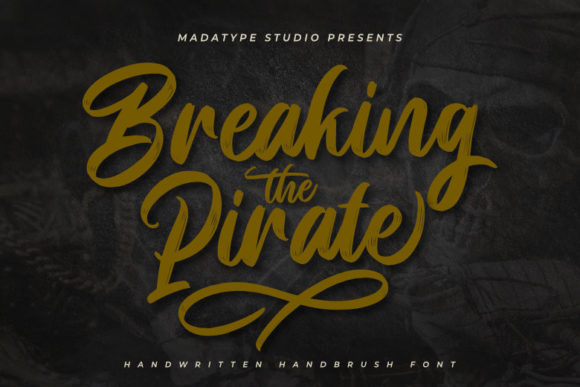
Unleash the spellbinding charm of your designs with Breaking Pirate, a script font that weaves a tale of elegance and allure. Immerse yourself in the world of visual enchantment as this font casts its magic upon your creations. Its meticulously crafted alternates and ligatures dance in harmony, inviting you to explore the boundaries of your imagination.
With Breaking Pirate, you can effortlessly evoke a sense of sophistication and timeless beauty in your branding logo. This font is a masterpiece, meticulously designed to elevate your designs to new heights of excellence. Its every stroke radiates artistry, making it the perfect choice for businesses and individuals seeking a touch of distinction.
Branding is not merely about creating a logo; it's about crafting an identity, a visual language that speaks to your audience with eloquence and power. Breaking Pirate empowers you to do just that. Its alluring curves and graceful lines capture attention, leaving an indelible mark on the minds of your customers.
But Breaking Pirate is not just for branding logos. Its versatility knows no bounds, making it ideal for a symphony of creative projects. From eye-catching social media posts to captivating posters and invitations, this font adds a touch of elegance to every project it graces.
With Breaking Pirate, you don't just download a font; you embark on a journey of creative exploration. Unleash the power of this font and witness your designs transform into works of art, captivating your audience and leaving them spellbound.